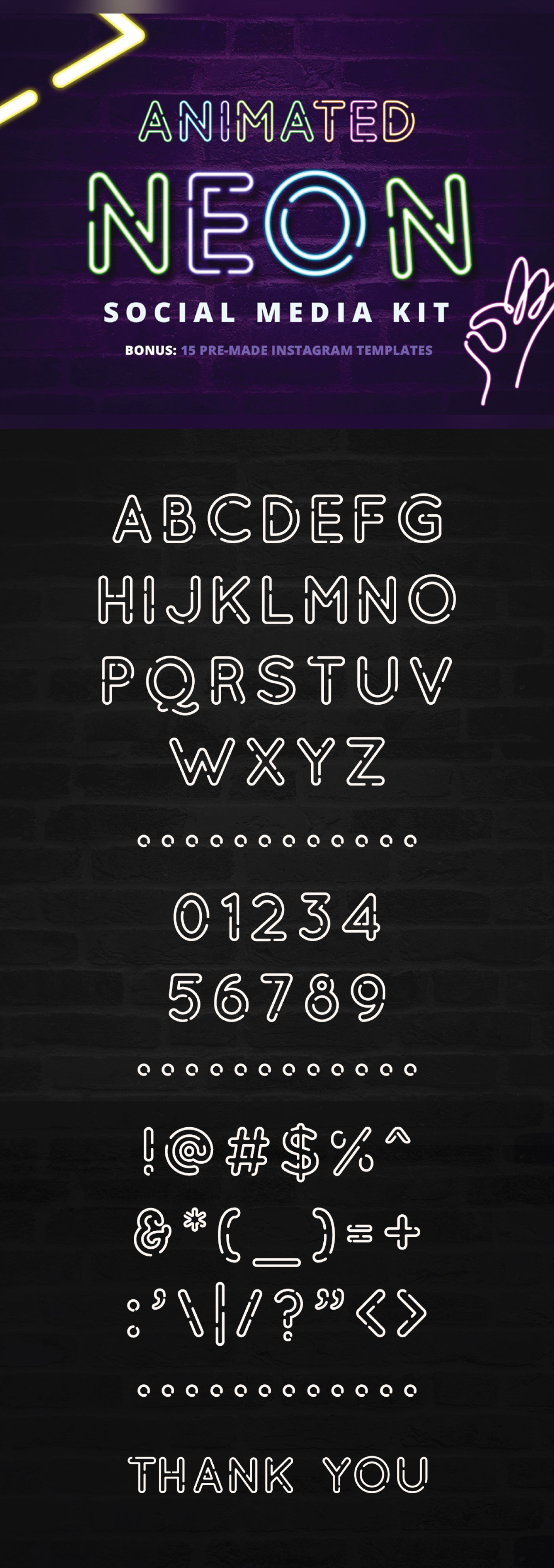
Free NEON ONE - NEON STYLE FONT
Introducing you to the absolutely beautiful free neon one - neon style font. Pixel Surplus has created this amazing and beautiful free font. Easily amaze your audience with this fancy font and make your graphic designs pop up from the crowd.